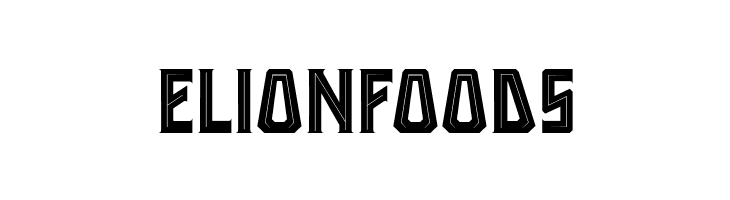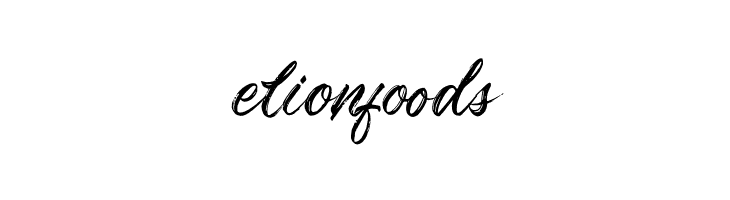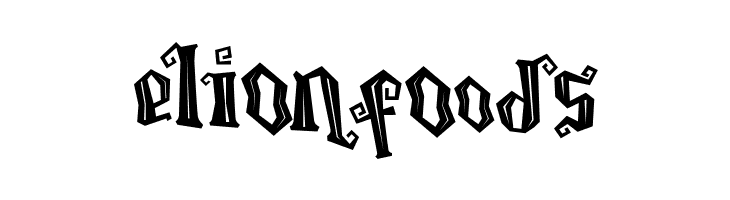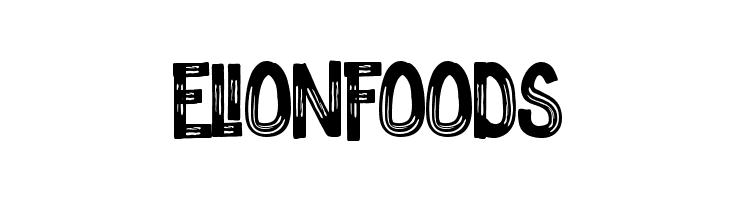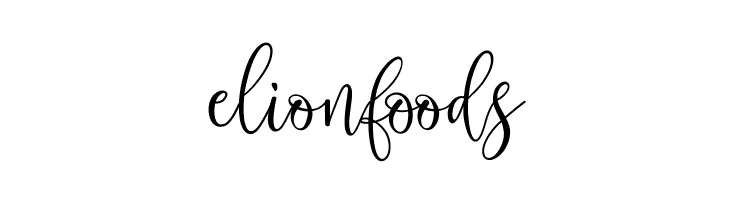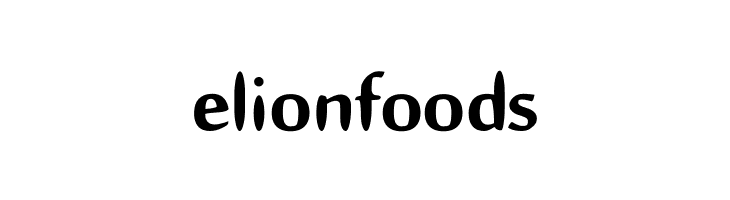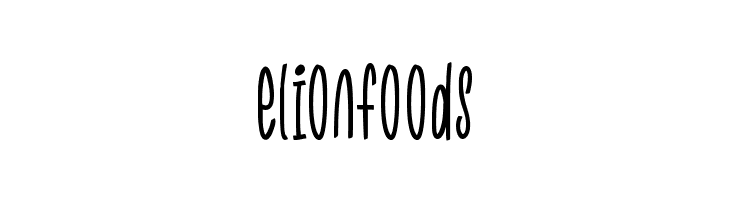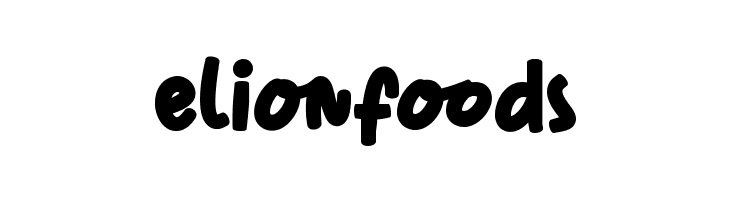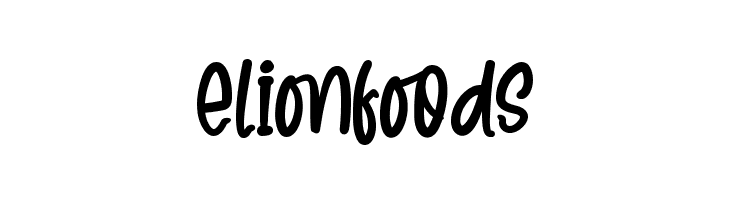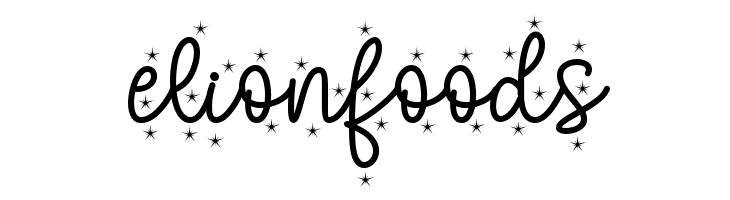
A bold, geometric font with sharp angles and high contrast.
An elegant, flowing script font with ornate uppercase and connected lowercase letters.
A bold, playful font with a spooky, Halloween-inspired design.
A bold, hand-drawn font with textured, sketch-like details.
A modern, elegant script font with flowing cursive letters and dynamic strokes.
A versatile font with elegant curves and distinct serifs, suitable for various applications.
A playful, tall, and narrow font with smooth, rounded strokes.
A playful, bold, and hand-drawn font with a bubbly style.
A bold, playful handwritten font with smooth, flowing curves.
A festive, decorative font with star embellishments and curly accents, perfect for holiday themes.